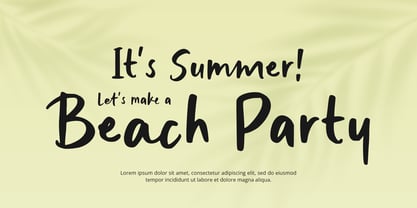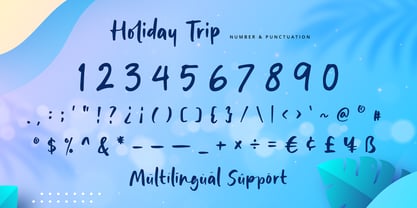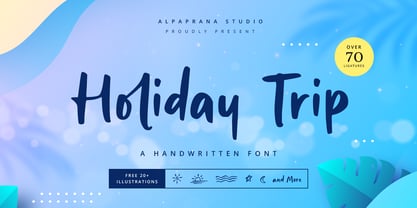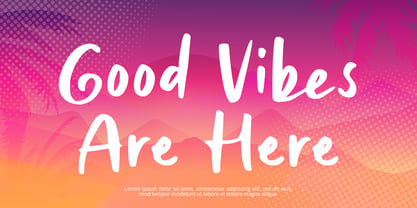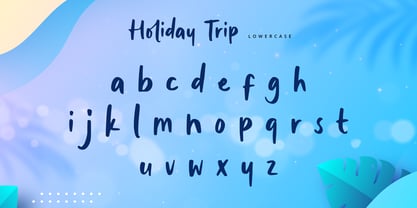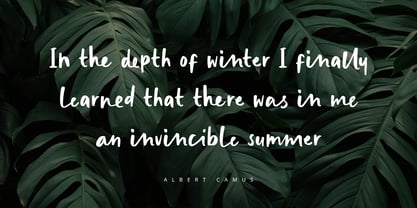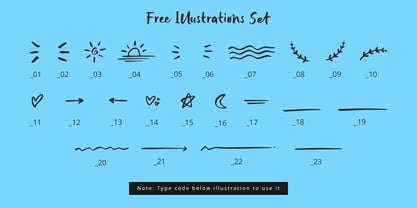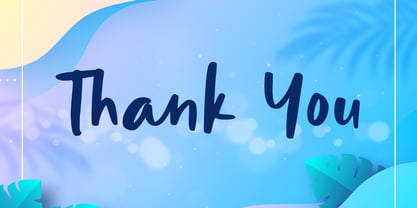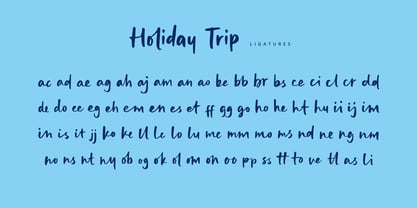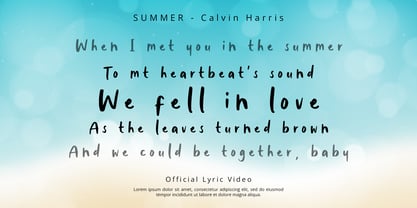
Holiday Trip
by Alpaprana
The Holiday Trip Font Family was designed by Nadia Salsabila and published by Alpaprana. Holiday Trip contains 1 styles. More about this family
Designers: Nadia Salsabila
Foundry: Alpaprana